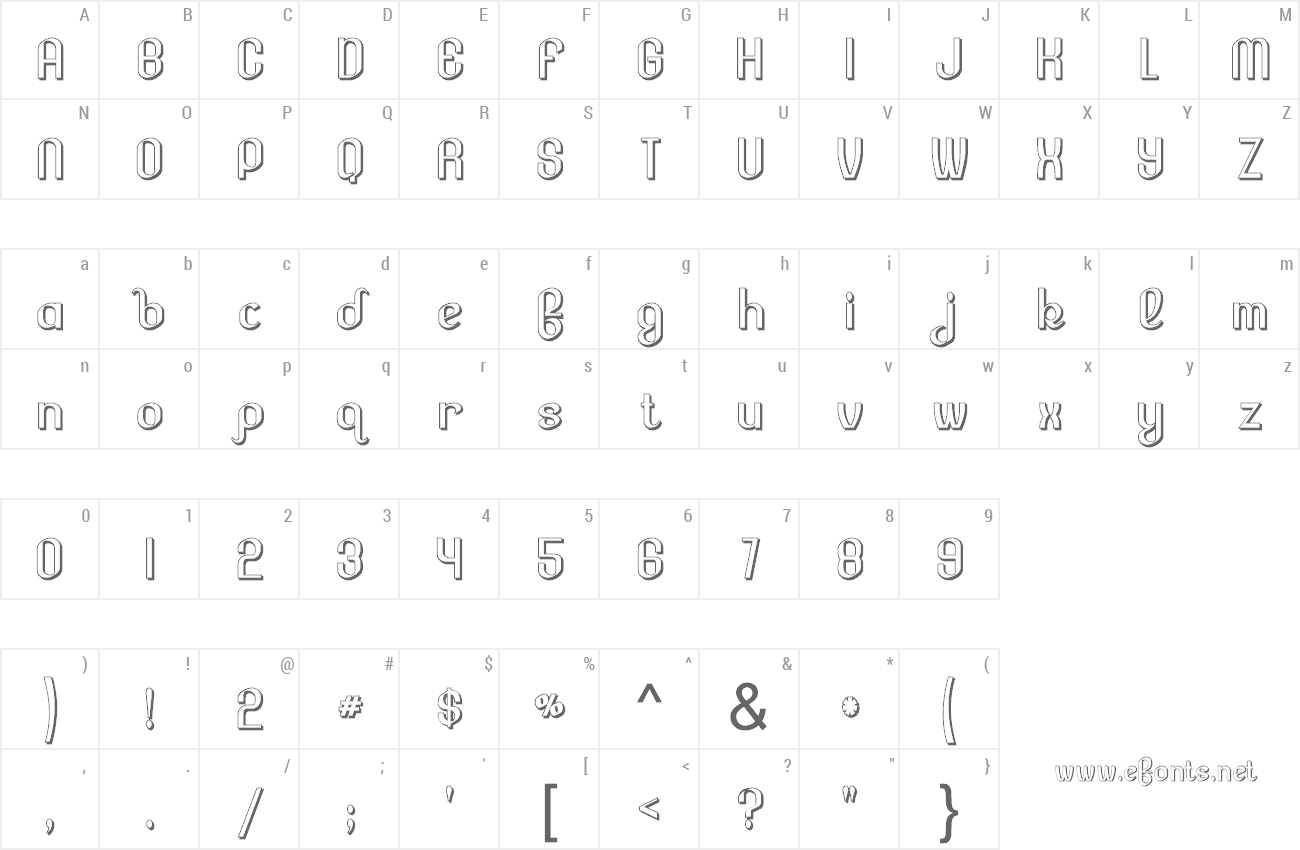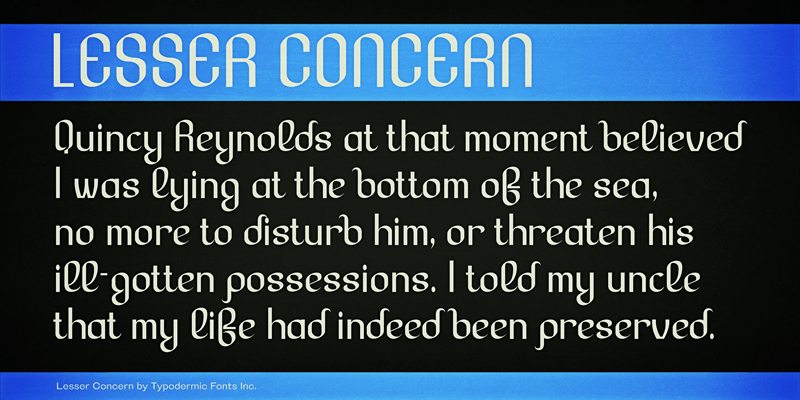
| Font name: | Lesser Concern |
Lesser Concern is a modular, calligraphic display font based on capsule shapes. These fonts include a license that allows free commercial use: sometimes referred to as a desktop license. This allows you to install the fonts on a computer and use them to create posters, web graphics, game graphics, t-shirts, videos, signs, logos and more. Read the license agreement for details. If you'd like to embed these fonts in an app, ebook, on the web or anything that's not covered by the desktop license agreement, visit the link below. You'll find distributors who offer different types of licenses or you can contact me for help. http://typodermicfonts.com/lesser-concern/ |